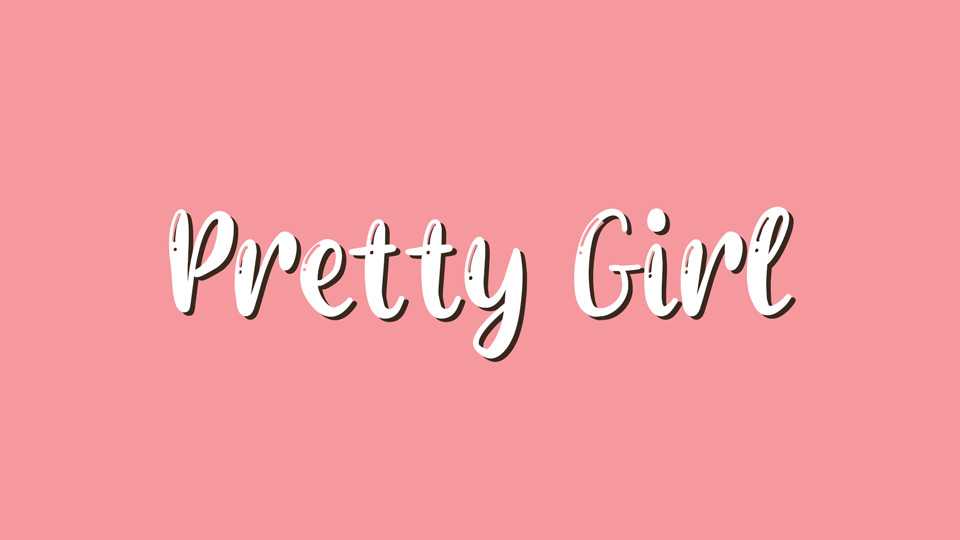
Download Pretty Girl font, a lovely and cute handwritten typeface that will add a charming, natural touch to any projects. Pretty Girl font is perfect for anything from quotes and wedding designs to greeting cards and children’s books.